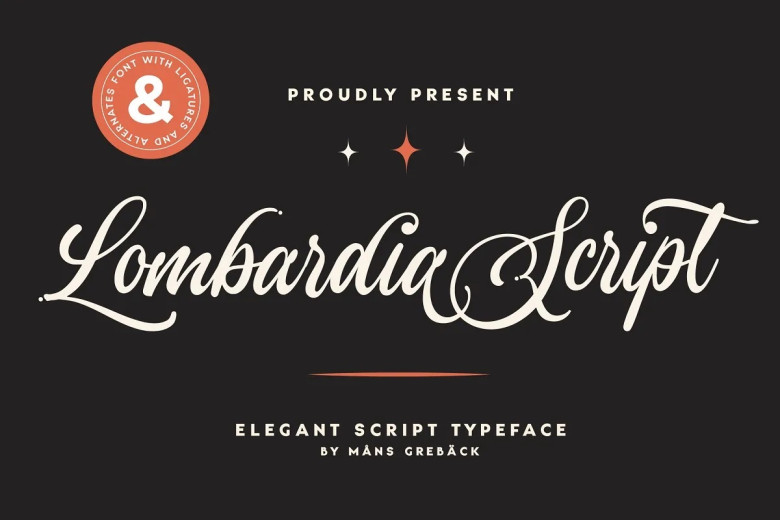
Lombardia Script Font
Lombardia Script is a creative and decorative calligraphy script font exuding both vitality and elegance. Good for designing logotypes, tattoos, or whatever else needs something of signature quality Designed with the knowledge and skills of calligraphy, Lombardia Script has a stroke that marked subtly a outline of fluent but gentle stroke shaped form.
This look made prevalent a new kind of authenticity, so it seems very natural and real Its look, that of an ink-brush stroke, together with creativeness and originality strengthen the sense of taste in any project where it is used.
Lombardia Script Calligraphy Font